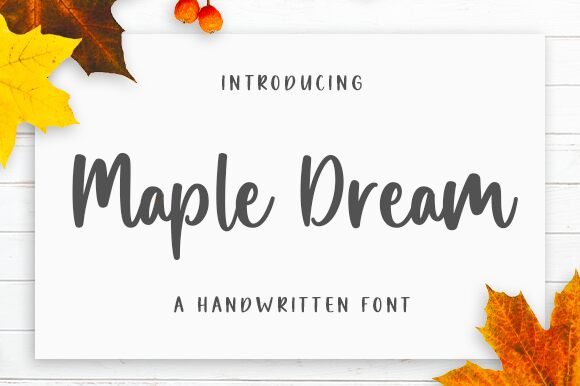
Maple Dream
Introducing Maple Dream - a modern handwritten font designed by Aldi Raya Pradipta. Perfect for creating stunning logos, beautiful wedding invitations, and eye-catching product packaging designs.